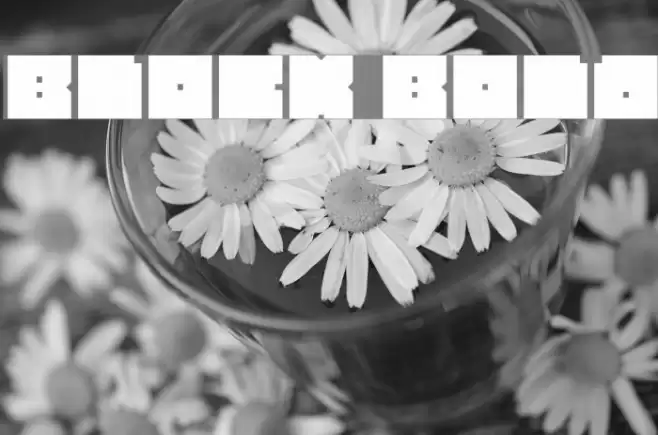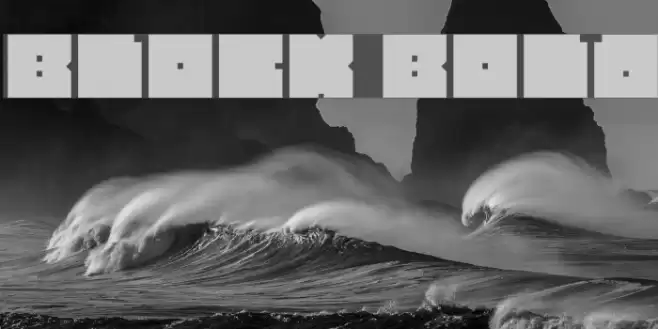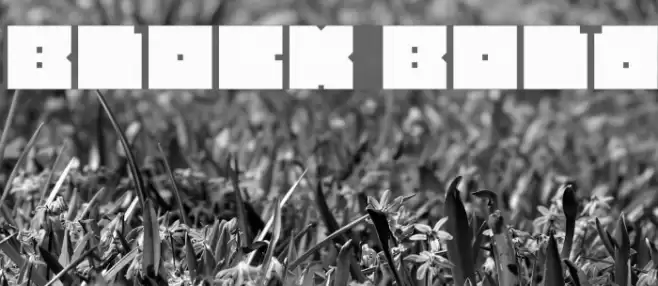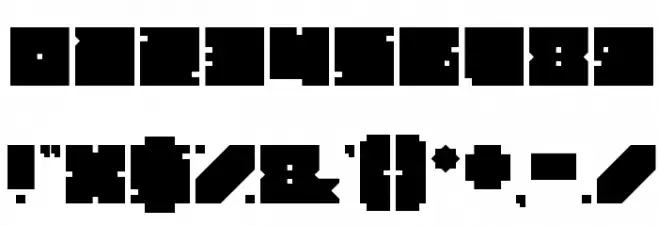
BLOCK Bold Font
BLOCK Bold Description
This font features a bold, blocky design with a strong geometric presence. Each character is constructed with thick, uniform strokes, creating a sense of solidity and impact. The uppercase and lowercase letters maintain a consistent height, emphasizing the font's monolithic style. The numbers and special characters follow the same robust design, ensuring visual harmony across all elements. The font's lack of curves and emphasis on straight lines and right angles give it a modern, industrial feel. Its boldness makes it ideal for grabbing attention and making statements.
A bold, geometric font with a strong, industrial aesthetic from Uncategorized fonts.
- Proposed Projects: Ideal for posters, headlines, branding, and any project requiring a strong visual impact.